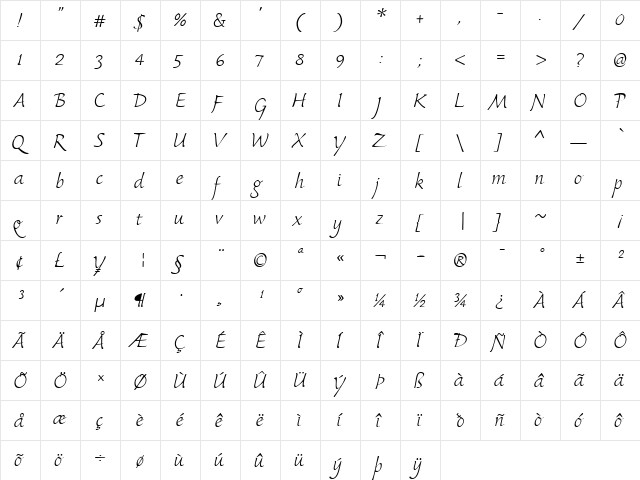
Synthetica Regular Regular
Design Context for Synthetica Regular Typeface
Synthetica Regular is a composed and adaptable typeface that performs quietly and consistently across a wide range of design contexts.